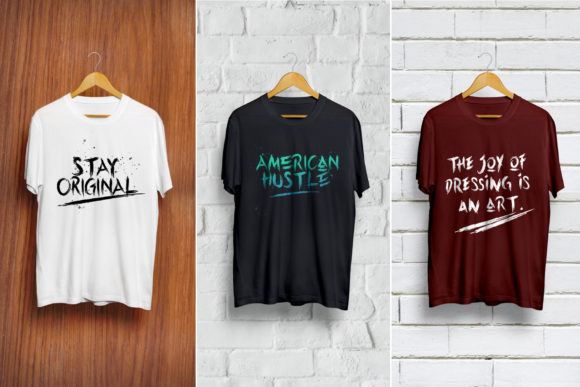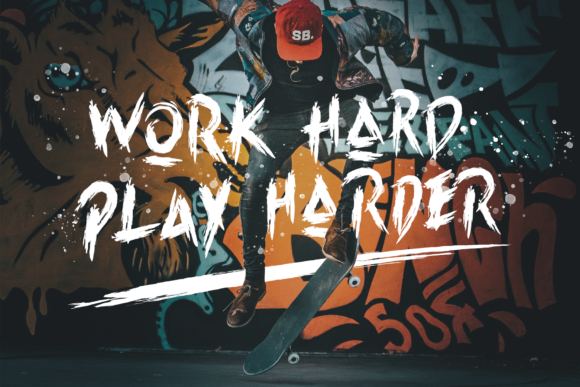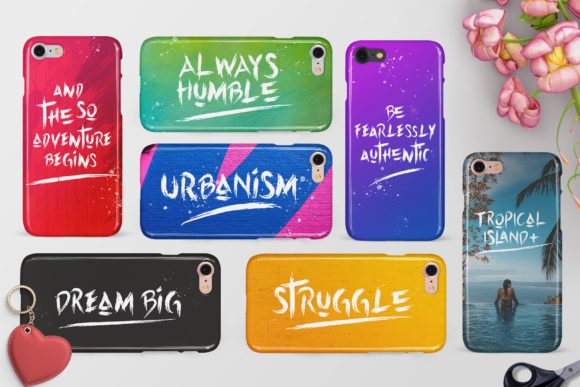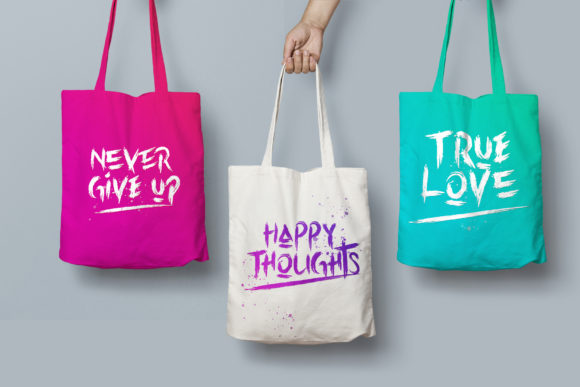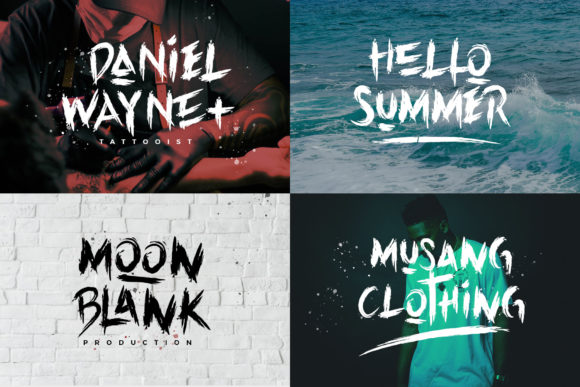
The Blackdeath Font: A Street-Wise Brush Font to Elevate Your Designs
Have you ever been in the middle of a design project, and suddenly, you’re stuck on finding the perfect font? I recall a recent experience where I was working on a branding project for a trendy boutique, and I just couldn’t find a font that captured the edgy, street-wise vibe I was going for. That’s when I stumbled upon the Blackdeath font, and it completely transformed my design.
- ✅ The Blackdeath font is bursting with energy and personality, making it perfect for designs that need a bold statement.
- ✅ Its extra attention to quick strokes and sharp details gives it a real personal touch that’s hard to find in other fonts.
- ✅ It’s incredibly versatile and can be used for a wide range of projects, from editorial designs to product packaging.
- ⚠️ Some users might find the font a bit tricky to read in smaller sizes, so it’s best to use it for headlines or titles.
- ⚠️ The font’s street-wise vibe might not be suitable for more formal or traditional designs.
The Designer Inspiration Behind Blackdeath
The Blackdeath font was inspired by the raw energy of street art and the urban landscape. Its creator, a talented type designer, wanted to capture the essence of city life and translate it into a font that would add a personal touch to any design. With its bold strokes and sharp details, Blackdeath is the perfect reflection of the designer’s vision.
Q: What type of designs is Blackdeath best suited for?
A: Blackdeath is perfect for editorial designs, branding, art quotes, book or cover titles, posters, apparel design, product packaging, labels, and special events.
Q: Is Blackdeath a difficult font to read?
A: Blackdeath can be a bit tricky to read in smaller sizes, so it’s best to use it for headlines or titles. However, in larger sizes, it’s perfectly legible and adds a bold statement to your design.